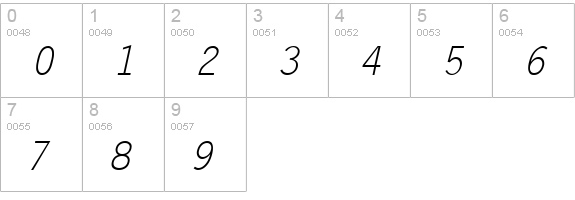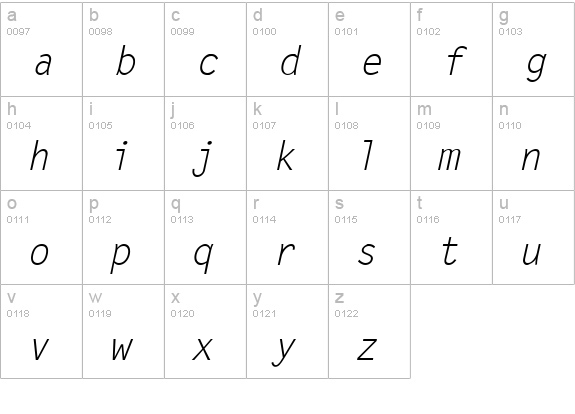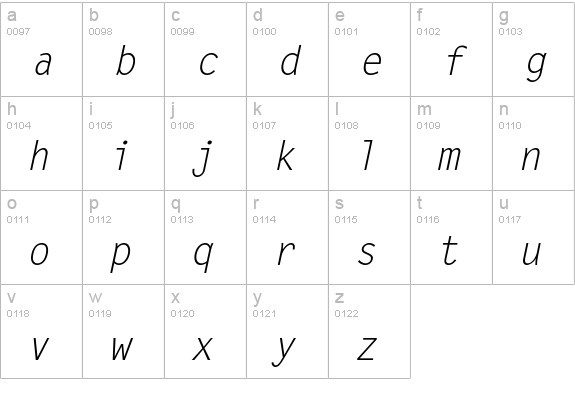
Lechter Italic is a distinctive, italic variant in the Lechter typeface family \xE2\x80\x94 well suited to design and typography projects.
Lechter Italic font is an exquisite and elegant typeface that exudes sophistication and charm. Its delicate and flowing letterforms lend a sense of grace and artistry to any design project. With its slanted and slightly cursive style, Lechter Italic font adds a touch of class and refinement to both print and digital applications. This font's unique combination of thin strokes and graceful curves creates a harmonious balance that is both visually striking and easy to read. Whether used for headlines, body text, or even logos, Lechter Italic font adds a touch of elegance and professionalism to any design. One of the most remarkable aspects of Lechter Italic font is that it is free and readily available to download at FontsMarket.com. This means that designers and typographers can easily access this stunning font without any cost or hassle. With just a few clicks, Lechter Italic font can be yours to use in any personal or commercial project. So why wait? Enhance your designs with the timeless beauty of Lechter Italic font. Download it for free today at FontsMarket.com and let its graceful and refined character elevate your creative endeavors to new heights.